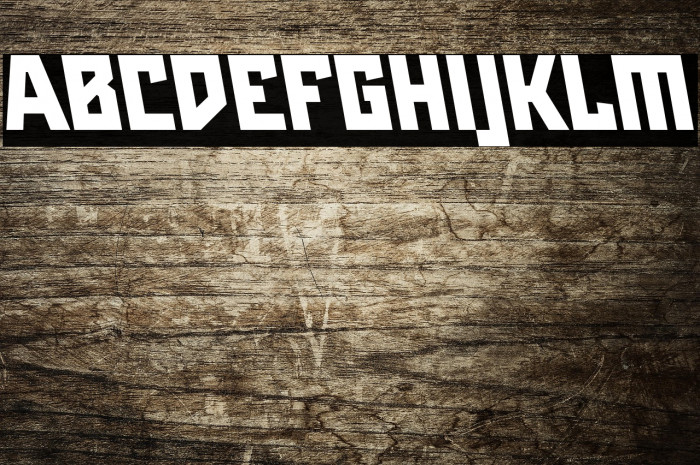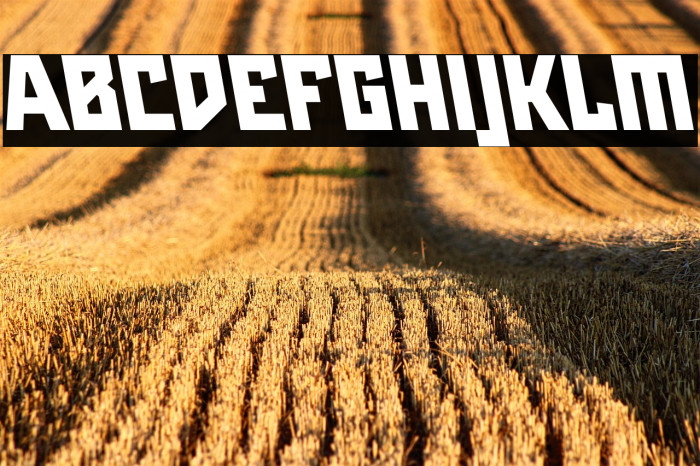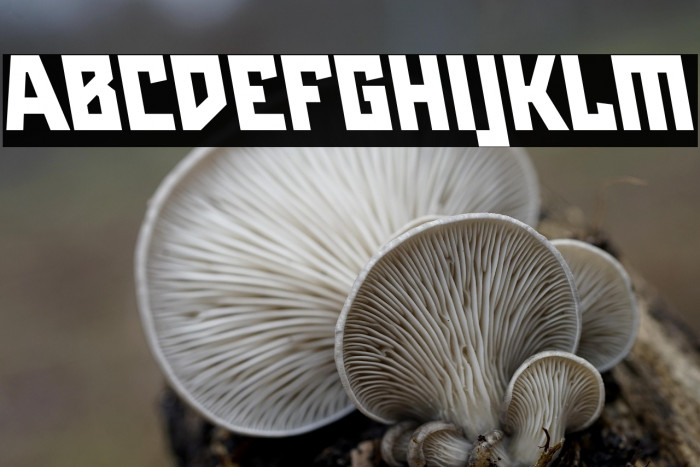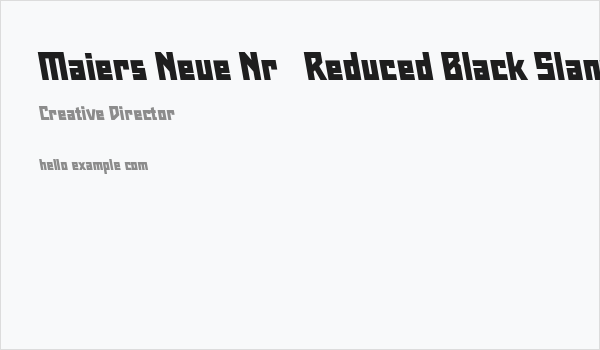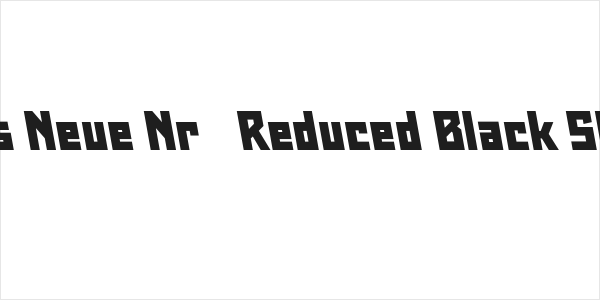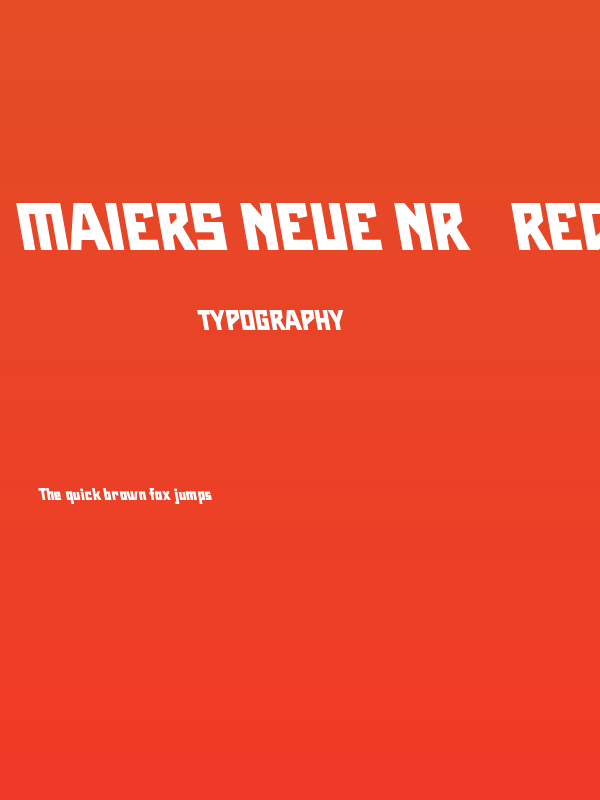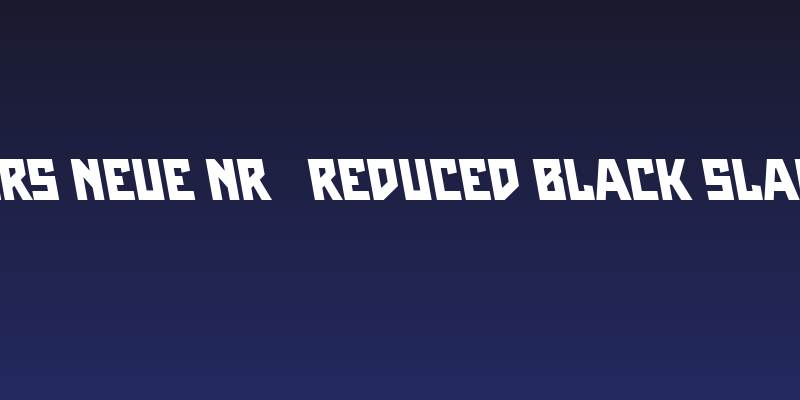
Maiers Neue Nr.8 Reduced Black Slanted Font
Maiers Neue Nr.8 Reduced Black Slanted Description
This font features a bold, angular design with a distinct slant, giving it a dynamic and modern appearance. The characters are blocky and geometric, with sharp edges and a strong presence. The uppercase and lowercase letters maintain a consistent style, emphasizing the font's cohesive look. The numbers and special characters are designed to match the boldness and angularity of the alphabet, ensuring uniformity across all glyphs. This font's unique style makes it stand out, suitable for projects that require a strong visual impact.
| Proposed Projects | Ideal for headlines, posters, branding, and any design requiring a bold statement. |